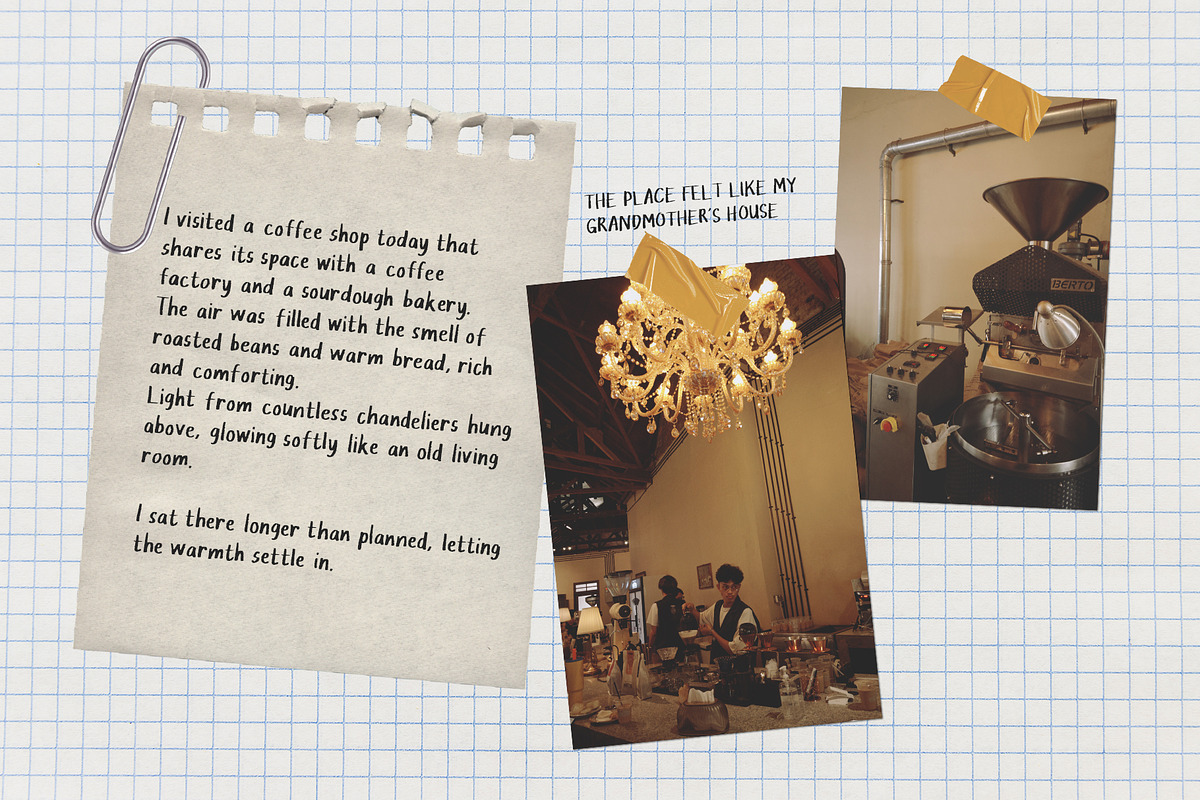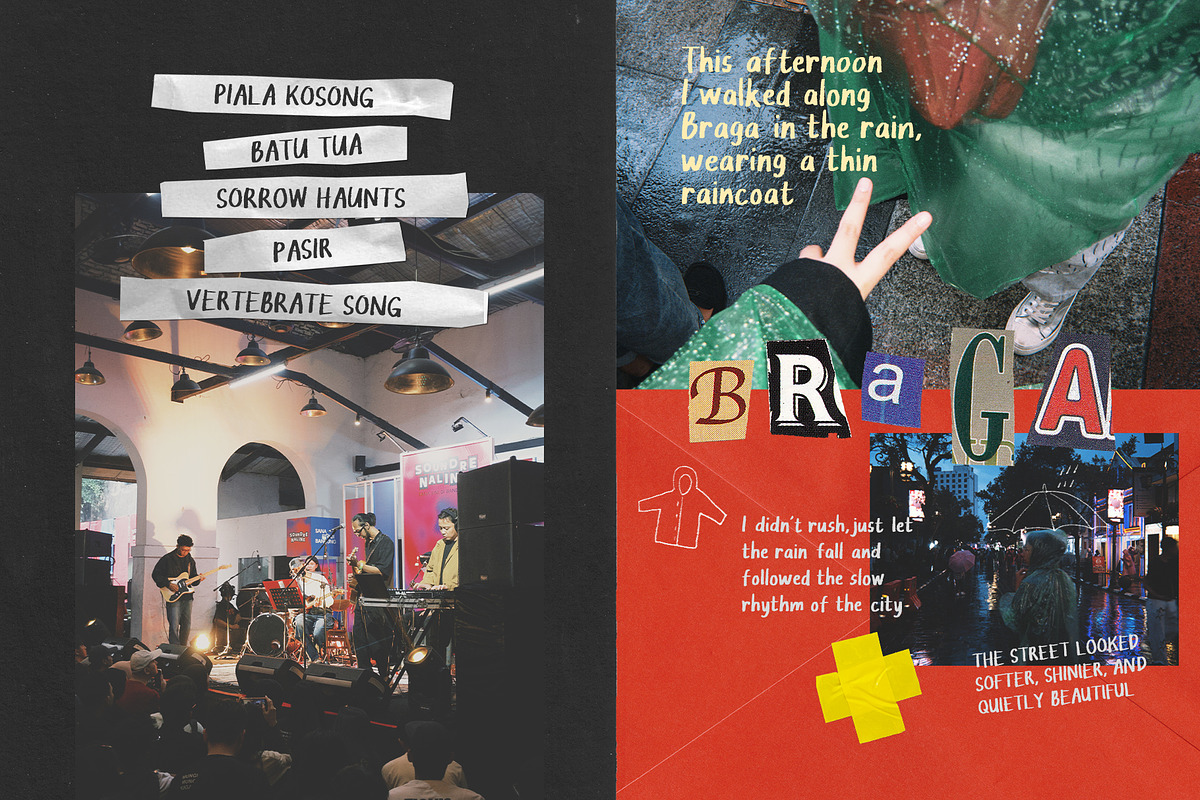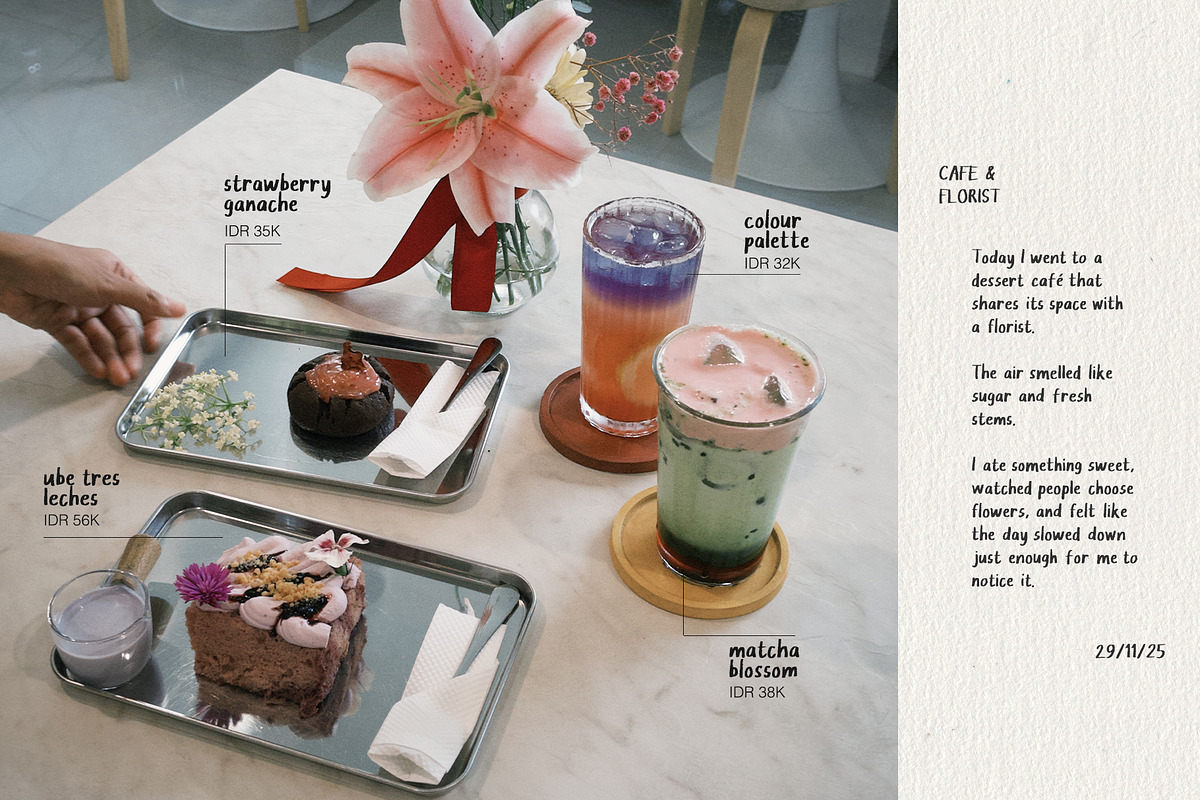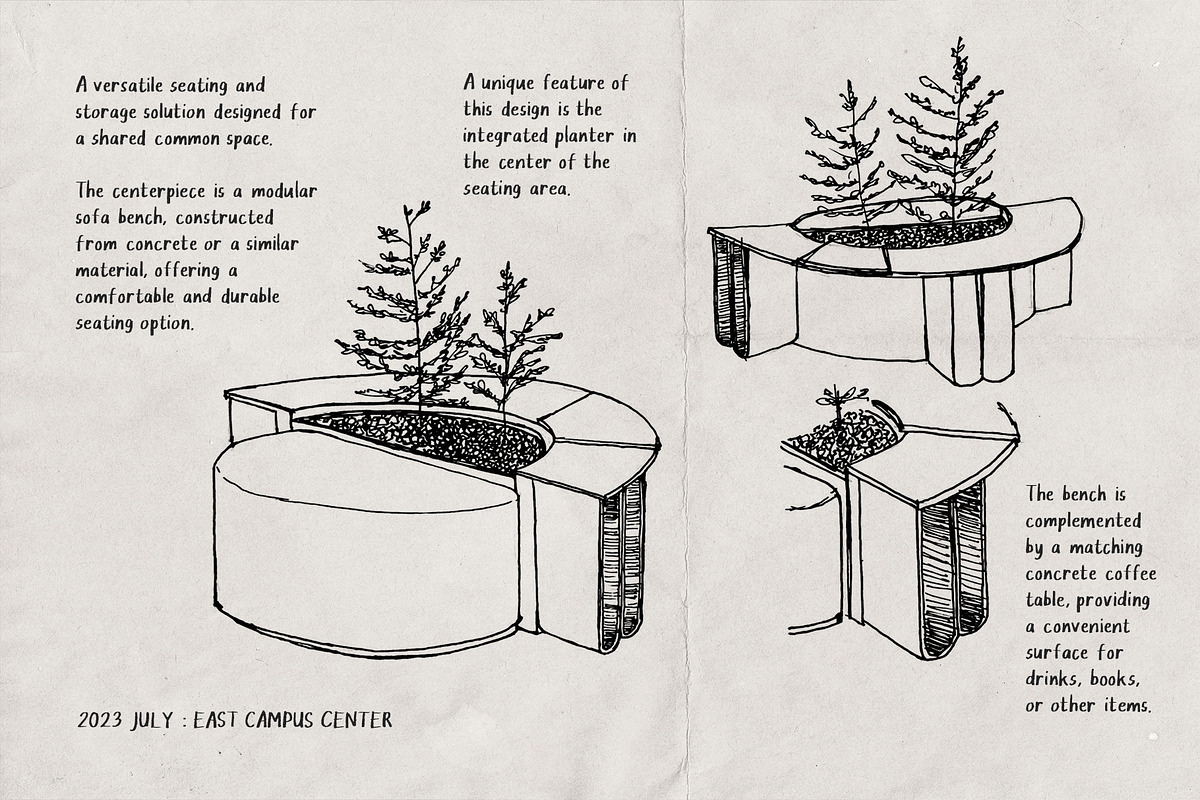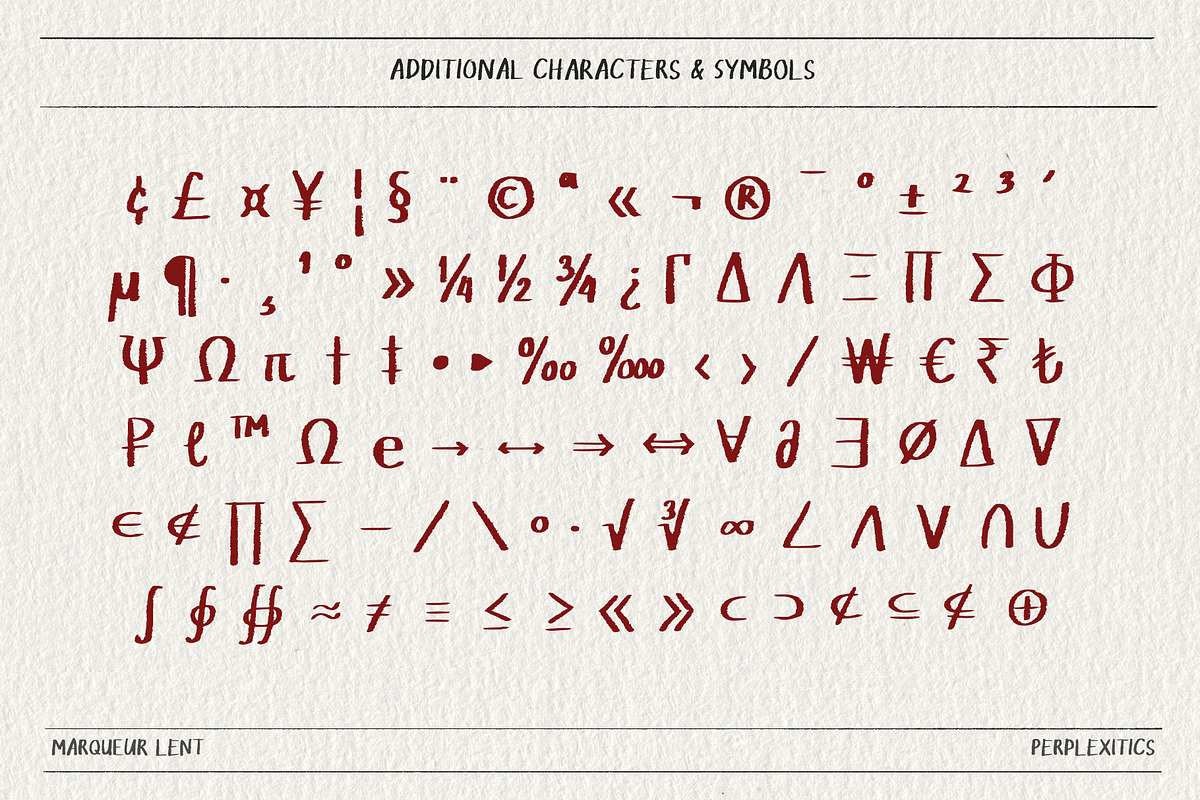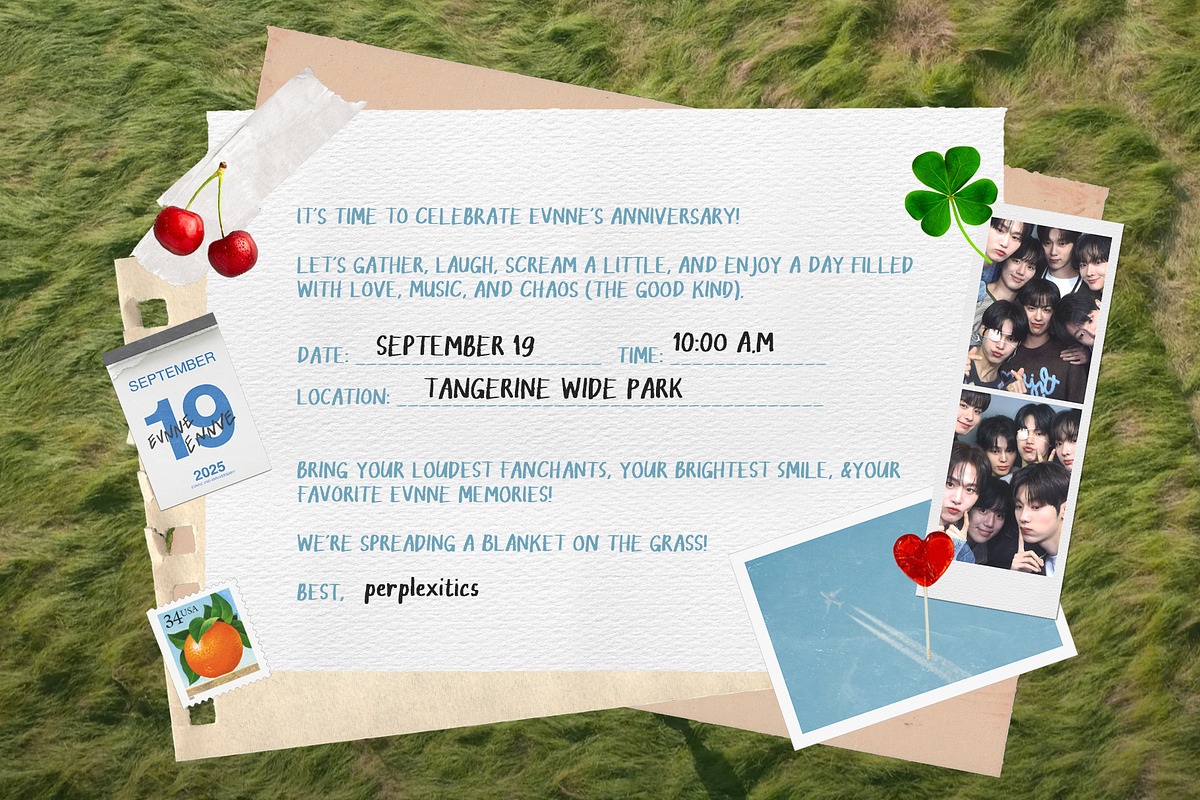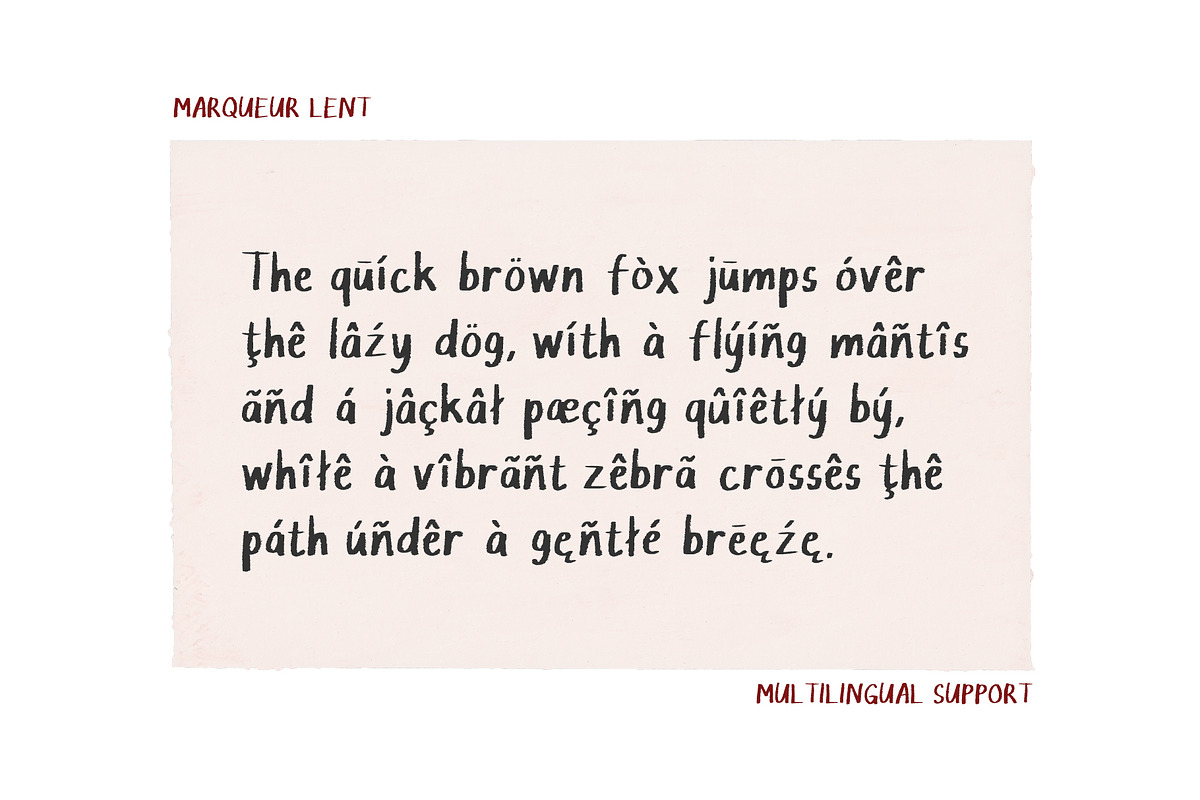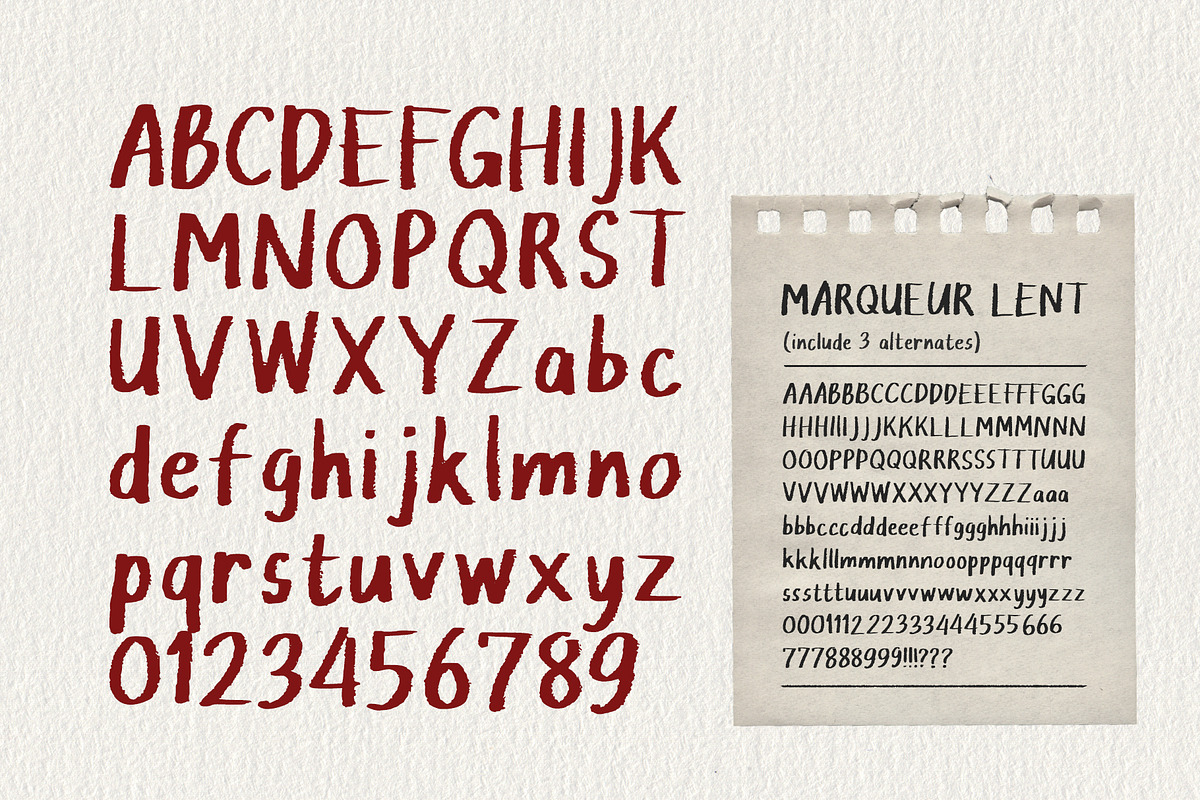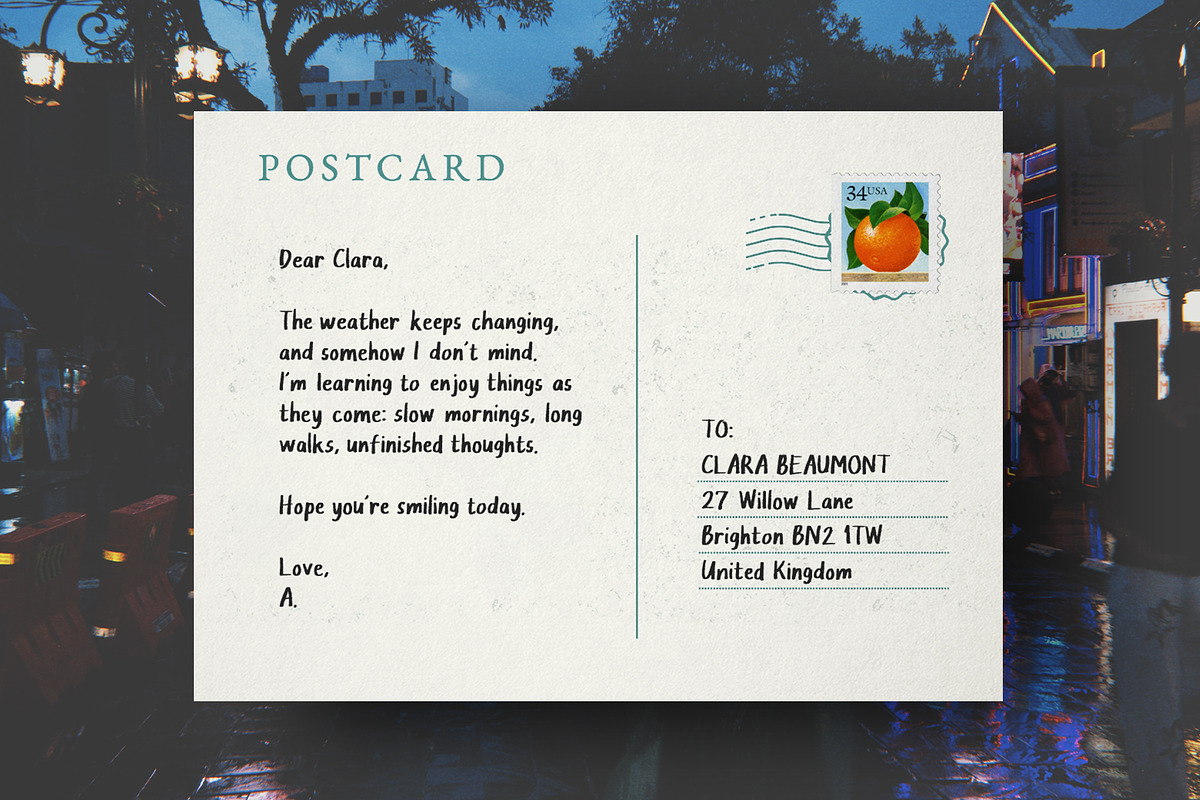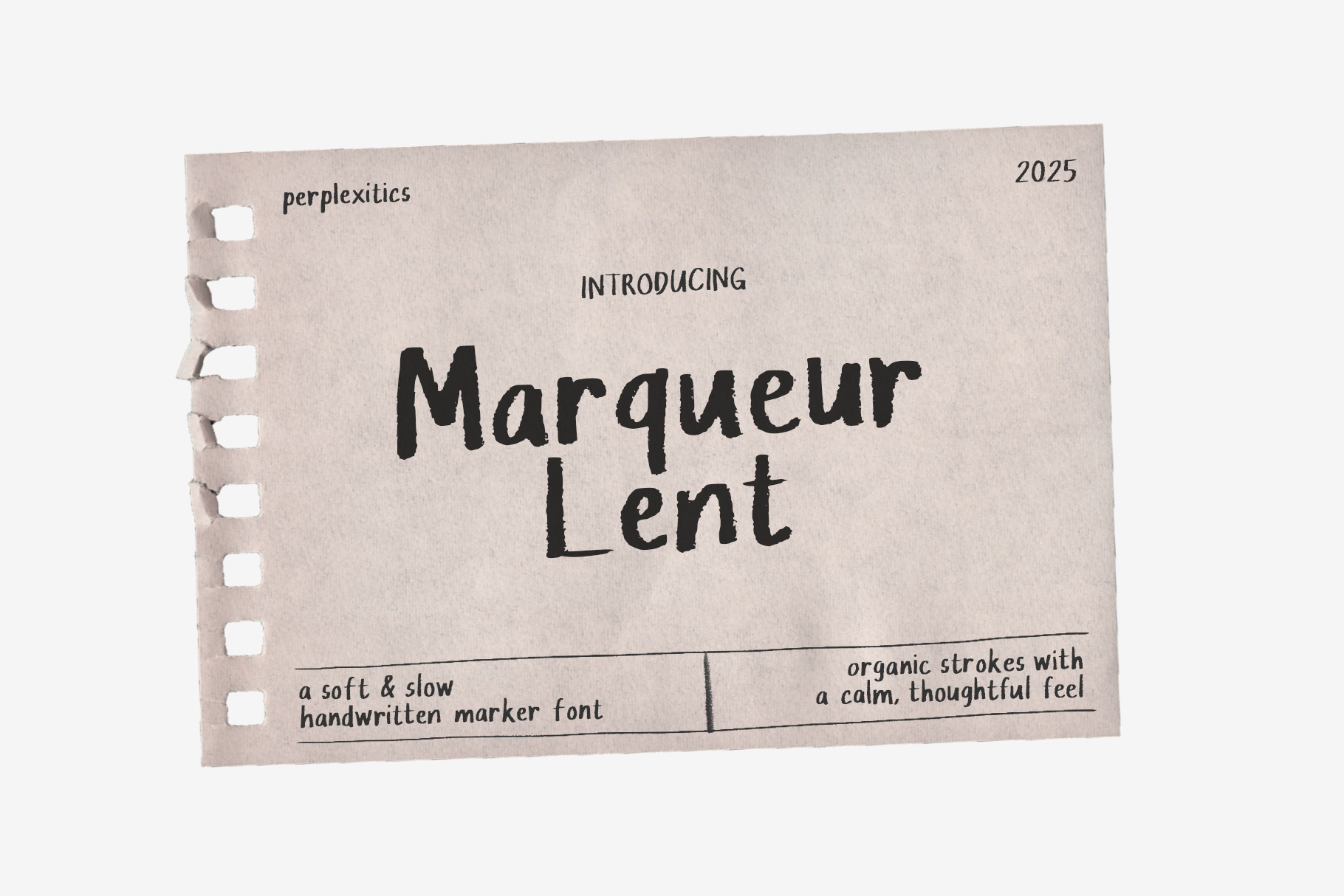
Marqueur Lent Soft Marker Font
Marqueur Lent Handwritten Font is a soft, slow handwritten marker font with organic strokes and a calm, thoughtful feel. Perfect for journals, diaries, quotes, poetry, cozy branding, and expressive layouts.
Marqueur Lent Handwritten Font is packed with everything you need, including uppercase and lowercase letters, numbers, and punctuation. Multilingual support.